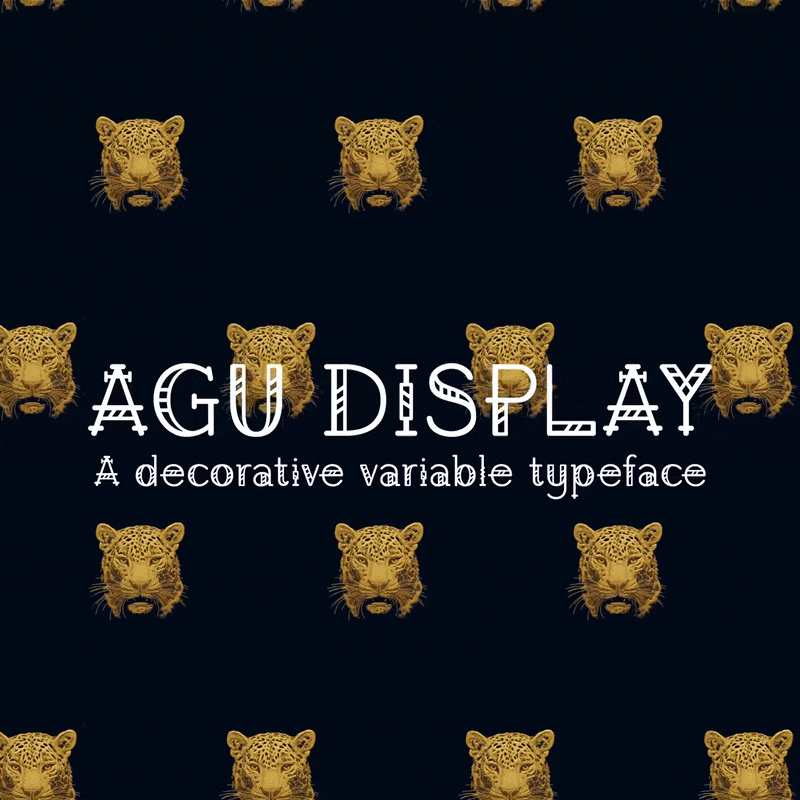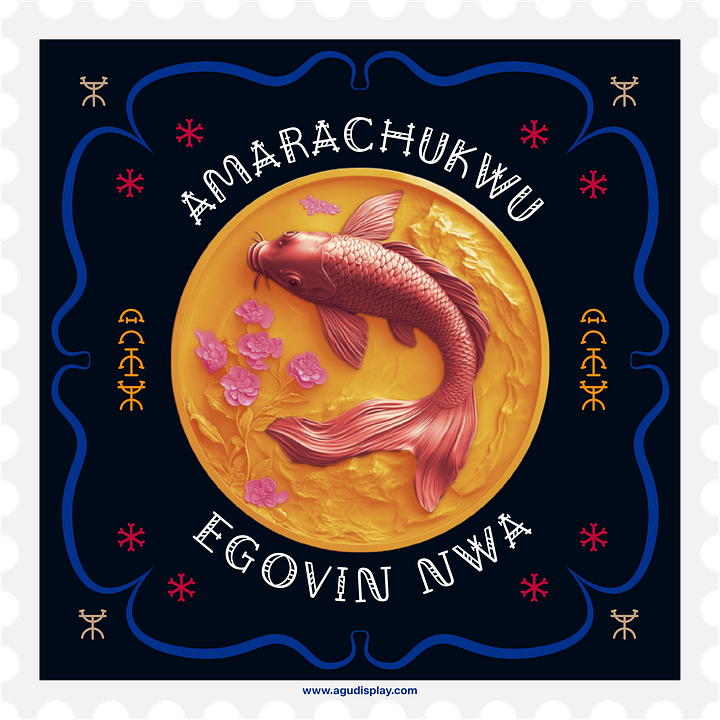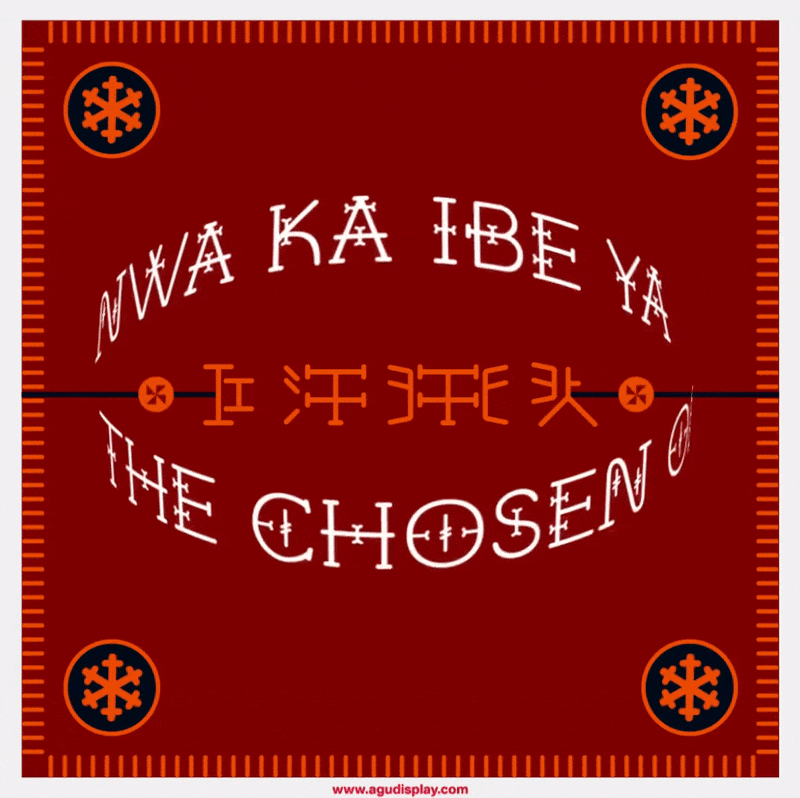
Nigerian multidisciplinary designer releases first typeface—Agụ Display, a decorative, rounded, sans-serif display typeface—in collaboration with Google Fonts
Agụ Display, a decorative, rounded, sans-serif display typeface featuring a substitution axis that makes the letters dance, is inspired by Nsibidi, an ancient graphic communication system...
On January 1, Seun Badejo, a Nigerian multidisciplinary designer with a focus on Type and Brand Design announced the release of his first typeface—Agụ Display, a decorative, rounded, sans-serif display typeface featuring a morphing substitution axis that makes the letters dance—in collaboration with Google Fonts.
With origins in the Ekpe secret society, Agụ Display brings the ancient mystique of Nsibidi symbols to life with inspiration from a rich West African heritage, extending from Cross River to Cameroon, the official website notes. “From the Ụzọ, Àlà to Osisi masters, let Agụ Display take you on a winding path through time, merging tradition with contemporary style in a unique typographic adventure as your words dance with history!” it adds.
According to Google Fonts, Agu Display serves as a bridge between historical symbolism and modern typography. “It's not just a font but a tool for cultural preservation, enabling designers to infuse their work with African heritage's depth and richness,” it explains. “This typeface celebrates tradition while fostering innovative expression, linking ancient communication with today's design needs.”
Agu Display is part of Google Fonts’ type project in Africa. The project, which began in 2023, set out to equip African designers with the knowledge, skills, and resources to design typefaces inspired by their culture, story and heritage.